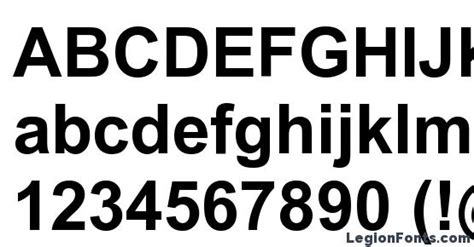
Arial Bold Font Sample. Unleash creativity with free arial, bold fonts. Web this page illustrates arial normal and arial bold fonts, in sizes ranging from 12px to 30px.
Unleash creativity with free arial, bold fonts. Web this page illustrates arial normal and arial bold fonts, in sizes ranging from 12px to 30px. Perfect for impactful headlines and expressive content.
Unleash creativity with free arial, bold fonts. Web this page illustrates arial normal and arial bold fonts, in sizes ranging from 12px to 30px. Perfect for impactful headlines and expressive content. Unleash creativity with free arial, bold fonts.